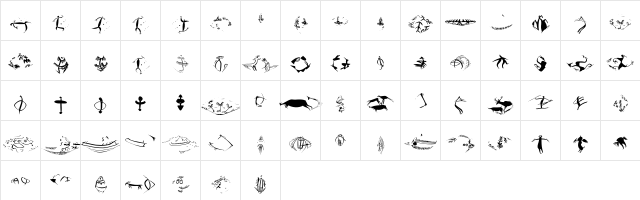
StrangeBeings Regular
StrangeBeings is a composed and adaptable typeface that performs quietly and consistently across a wide range of design contexts.